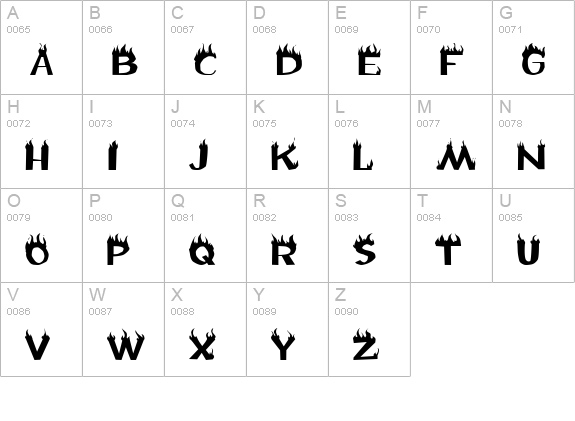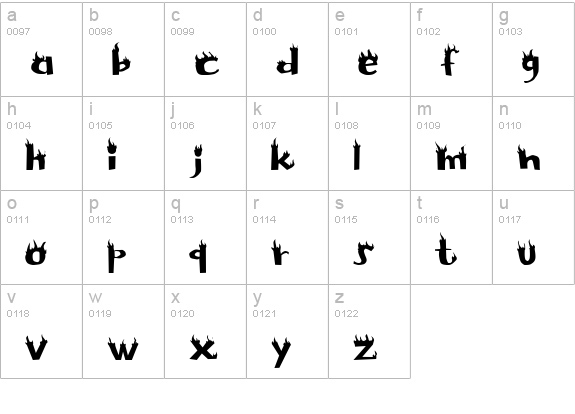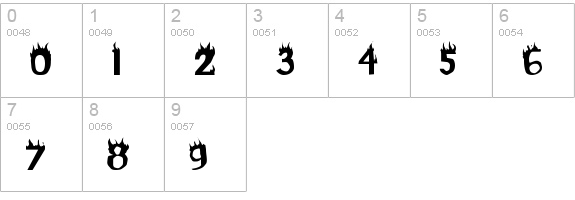
The Flame font is a striking and dynamic typeface that radiates energy and passion. Its fiery design features bold, swirling lines and sharp edges that evoke the flickering flames of a roaring fire. This attention-grabbing font is perfect for adding a touch of drama and intensity to your designs. Best of all, the Flame font is completely free to download at FontsMarket.com. Whether you're looking to make a bold statement or add a fiery flair to your projects, this font is sure to set your work ablaze with creativity. Download it today and ignite your designs with the power of Flame font!